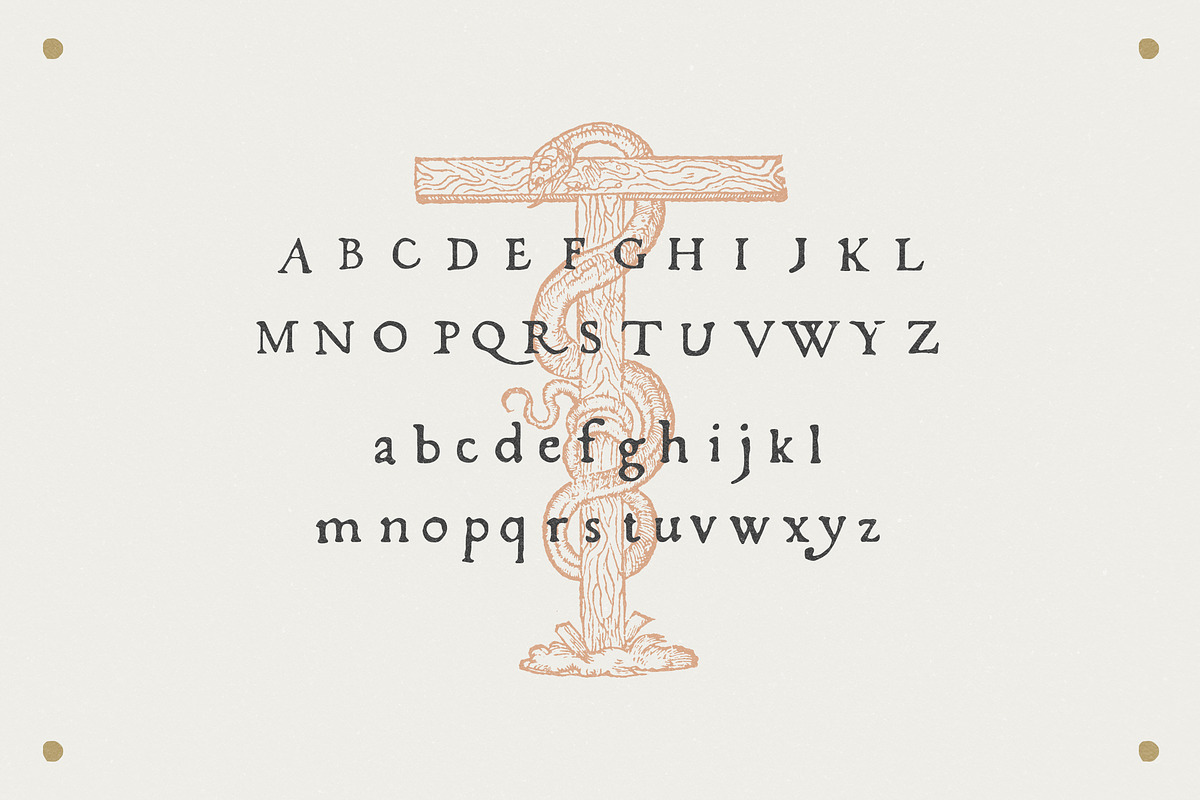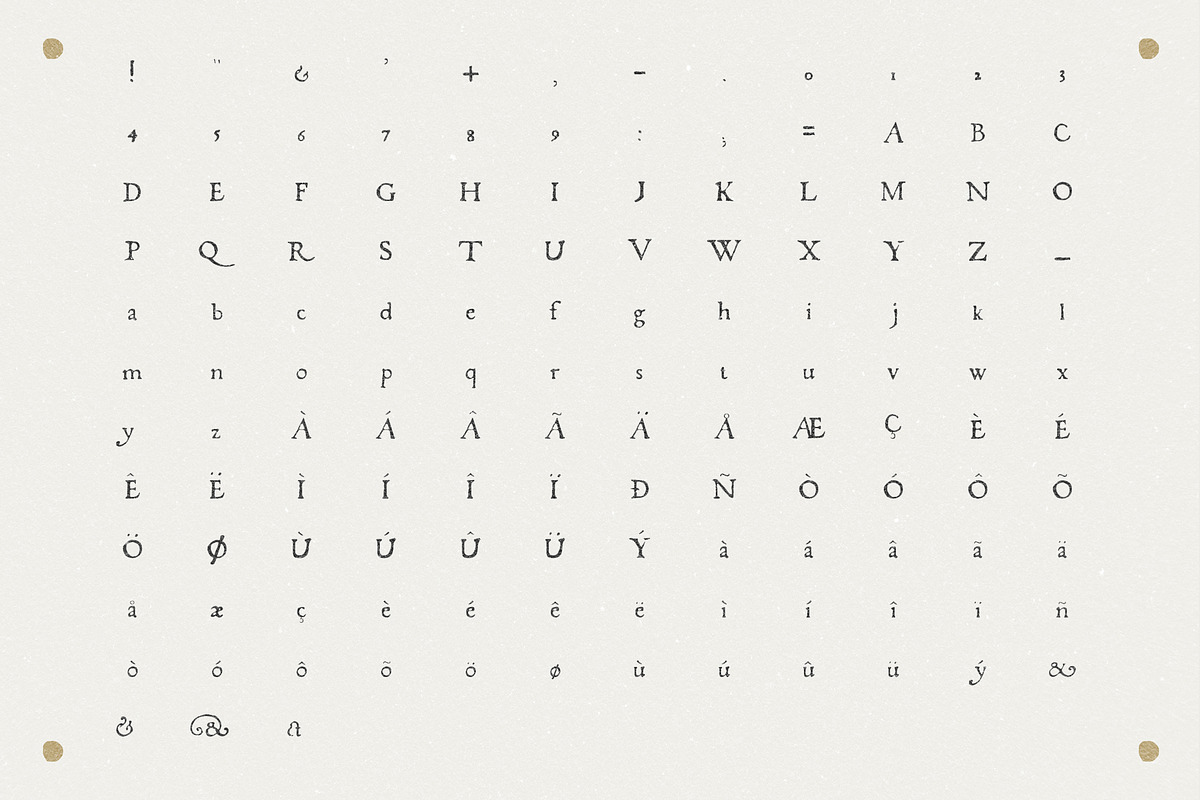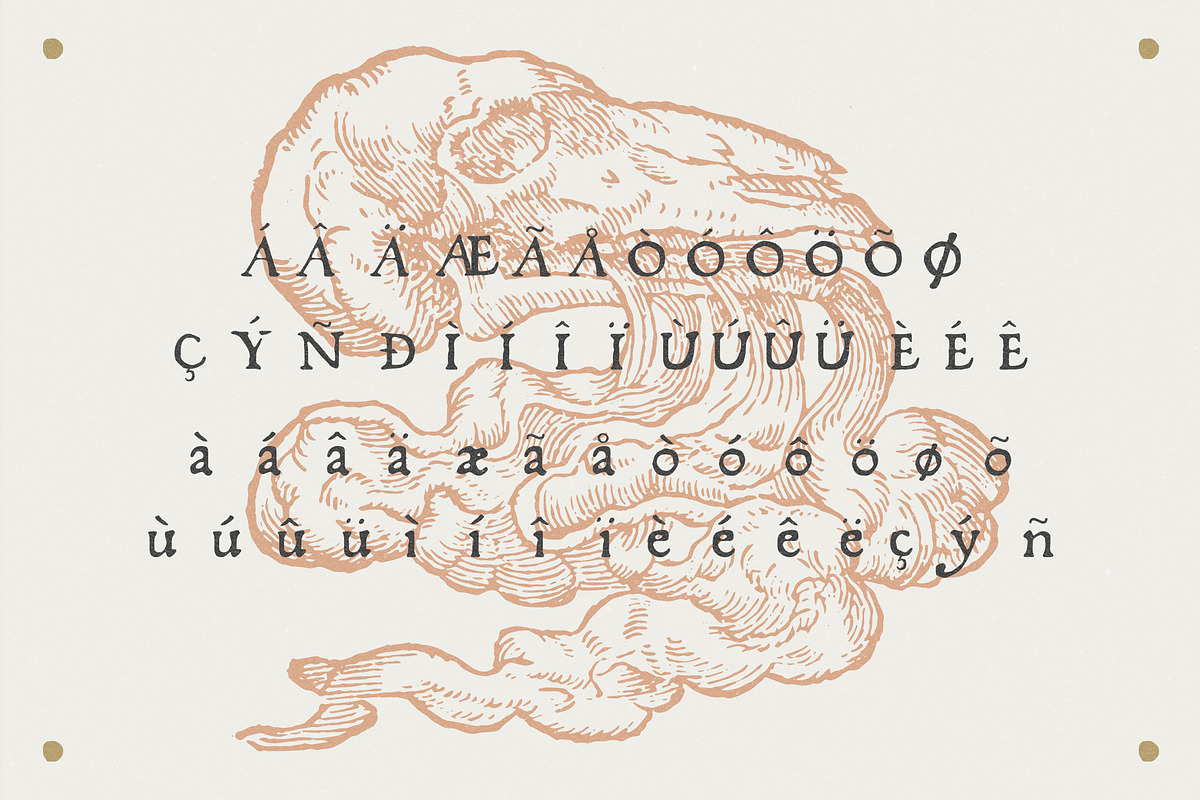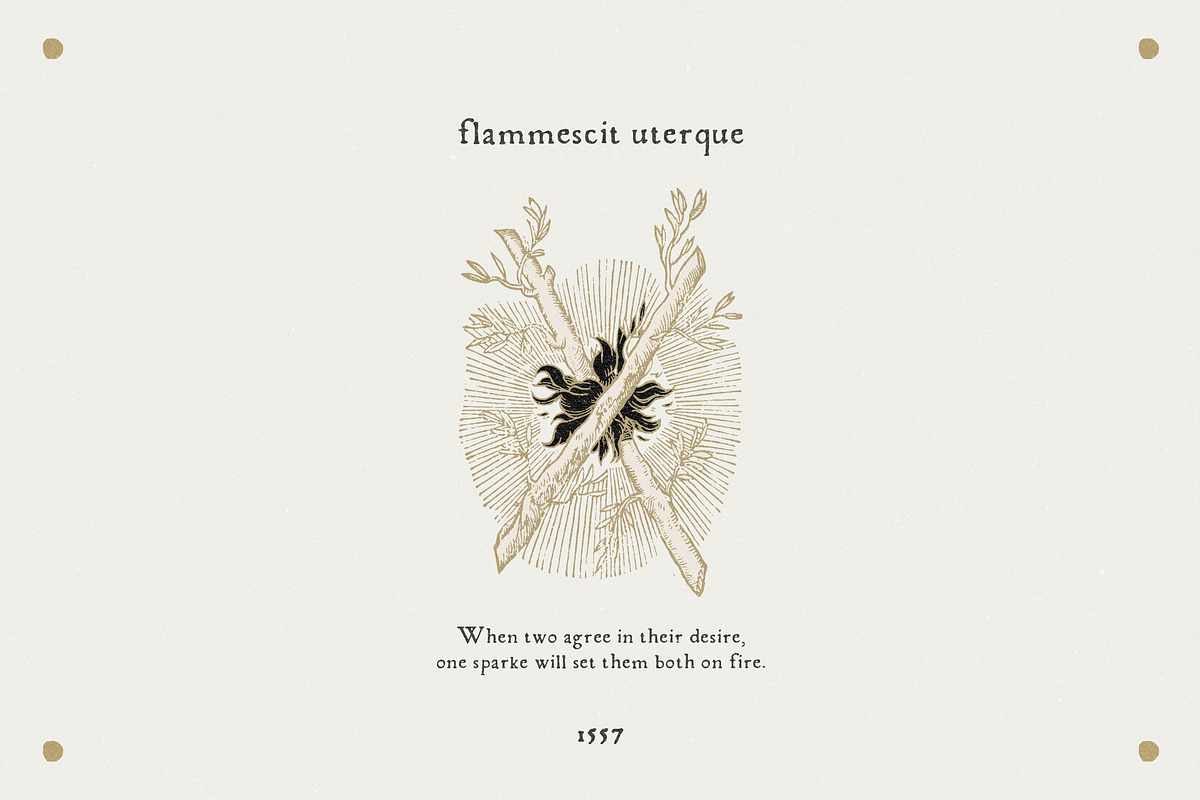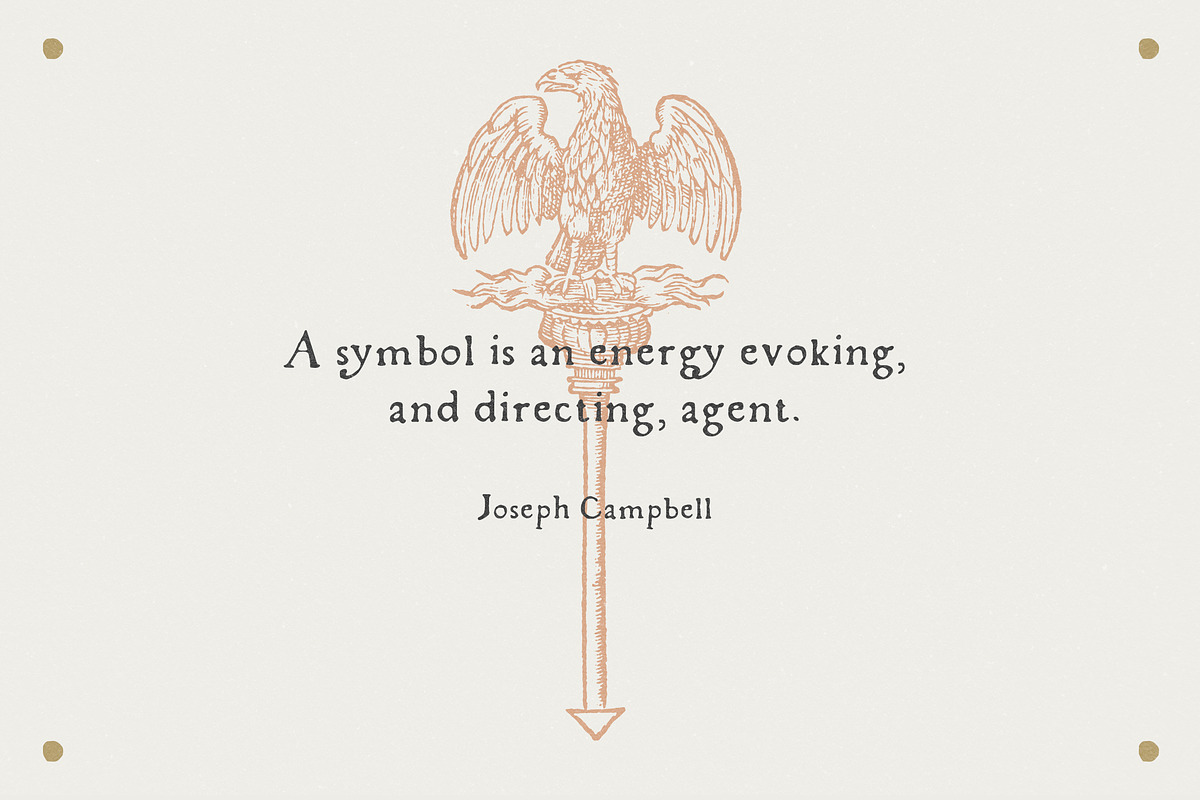
Fratelli - Serif font + Extras
FRATELLI - An antique serif font from 1577
This typeface was patiently retrieved from an antique alchemy volume dated 1577. The available characters were preserved, and the missing ones rebuilt, keeping the original imperfections and unique shapes.
'Fratelli' features uppercases, lowercases, numbers, basic punctuation and a set of special characters for international language support.
The package includes a set of 5 illustrations from the wonderful 'Symbola Heroica', a volume by Claude Paradin, originally printed in Lyon, 1551.
- EXTRAS The package includes a set of 5 illustrations from the wonderful 'Symbola Heroica', a volume by Claude Paradin, originally printed in